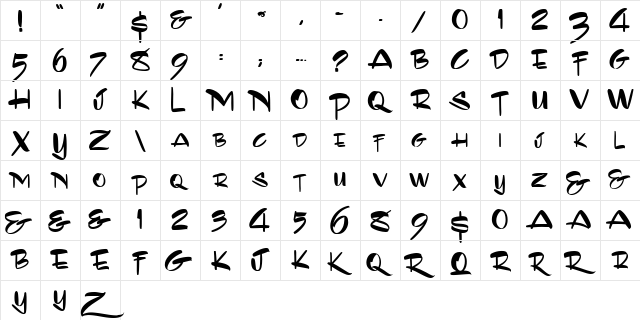
0 RaceCar Casual DNA Regular Free Font
0 RaceCar Casual DNA Regular
Design Context for 0 RaceCar Casual DNA
0 RaceCar Casual DNA is a composed and adaptable typeface that performs quietly and consistently across a wide range of design contexts.